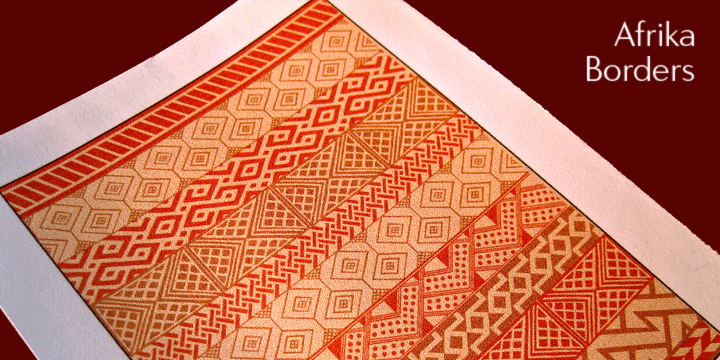
Afrika Borders
Afrika Borders™ is a delightful collection of over 50 border patterns based on geometric motifs from various African tribes, including the Ashanti, Bushongo, and Zulu. Use for stationery, greeting cards, etc.